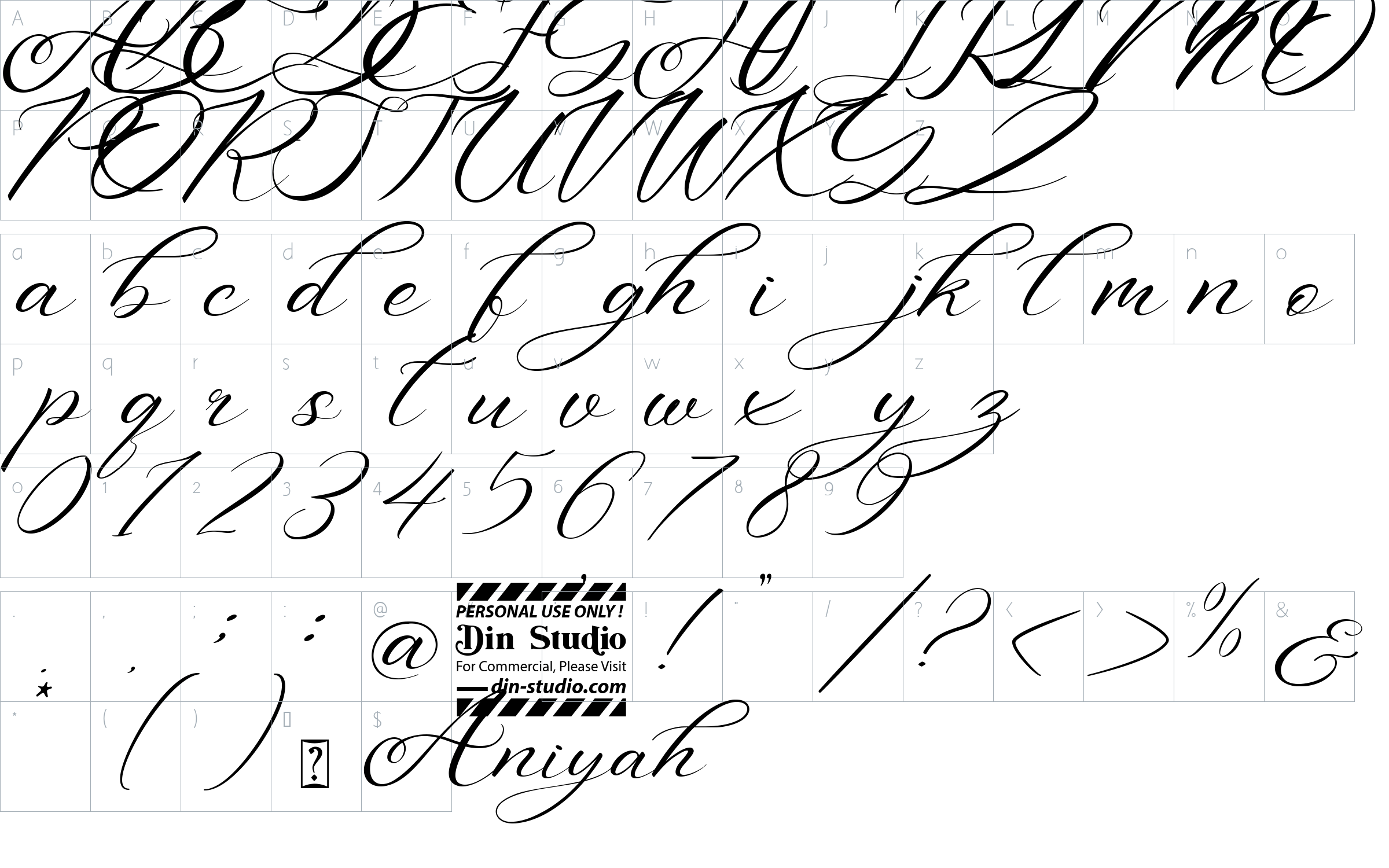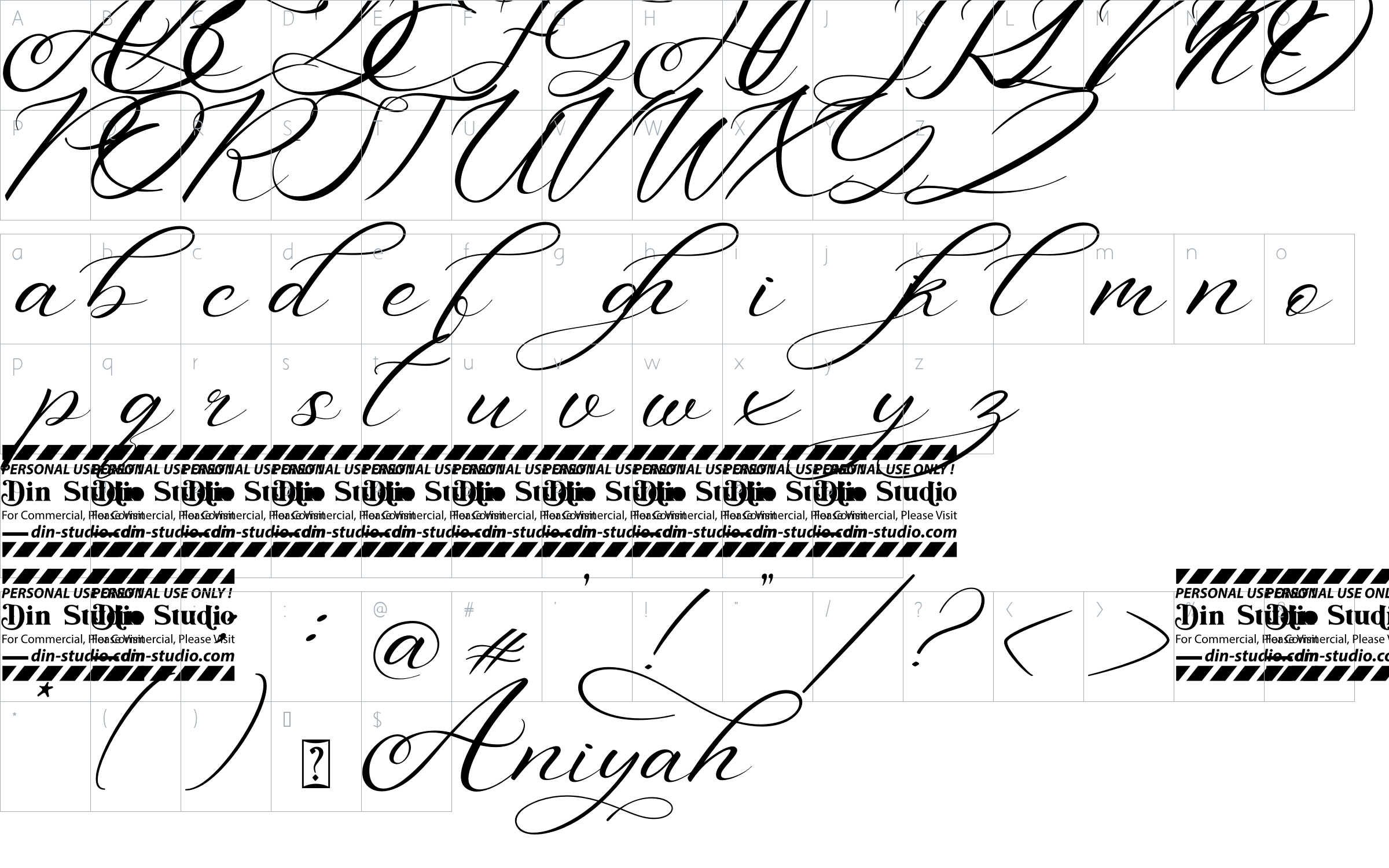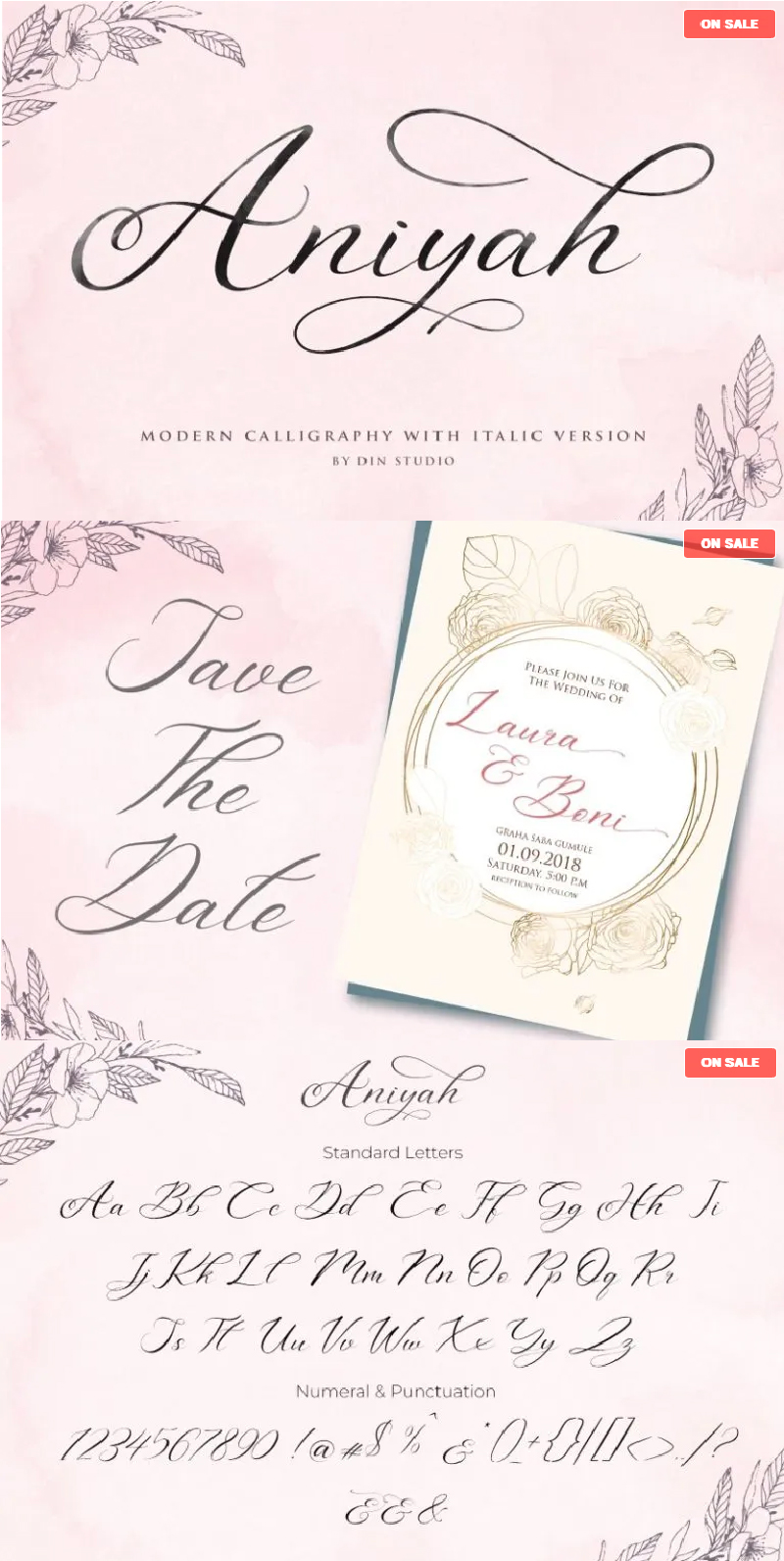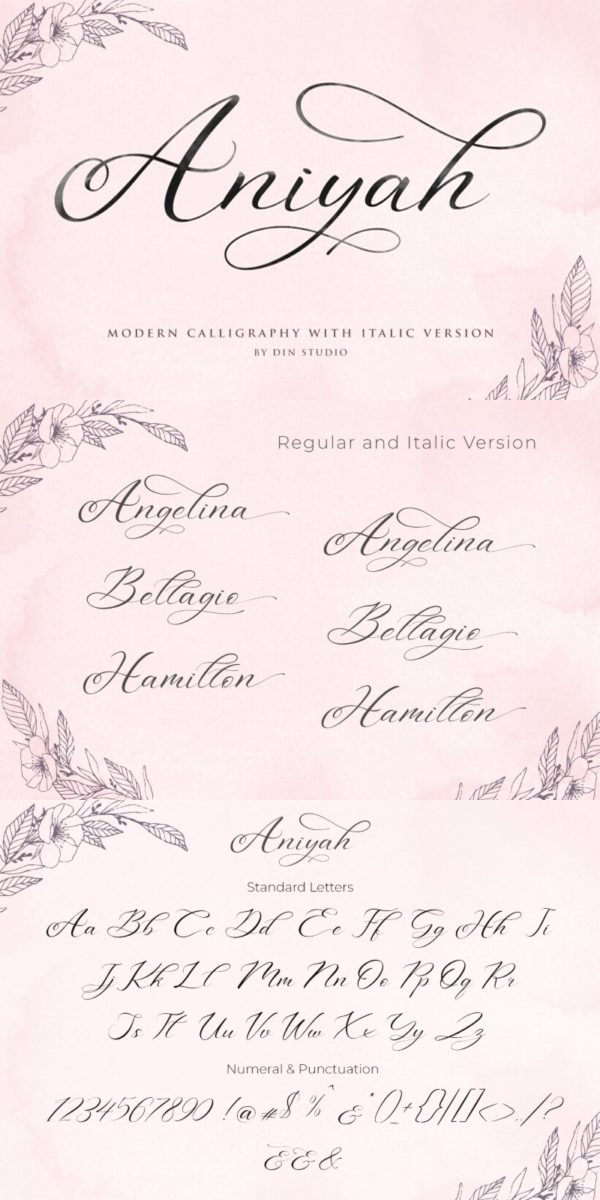
Aniyah Font
About Aniyah
Aniyah Script – Beautiful Calligraphy. Being made with naturally handwritten and modern style, it brings a beautiful and modern typeface. Aniyah Script is best used for weddings, brandings, logotypes, and quotes. See the previews above to get some inspiration on how you can use them. Happy designing!
Aniyah Script features:
- Beautiful ligatures
- Numbering & amp; Punctuations
- 1 front swash & 2 end swashes (a-z)
- Alternates (b,d,g,h,j,k,l,t)